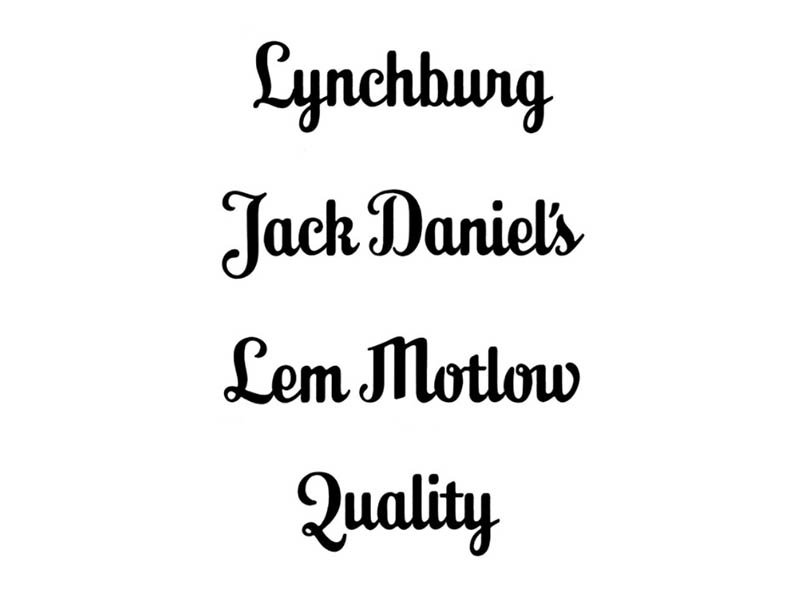
Lynchburg Script Font
Lynchburg Script Font - Web experience the lynchburg script regular font on windows, mac, and linux with our instant preview feature. The number of glyphs (characters). Web lynchburgh script font. * upper & lower case letters, marks and ligatures. Web font lynchburg script normal belongs to the categories aesthetic, decorative, script, tattoo.
Web lynchburgh script font. The number of glyphs (characters). Web font lynchburg script normal belongs to the categories aesthetic, decorative, script, tattoo. Web experience the lynchburg script regular font on windows, mac, and linux with our instant preview feature. * upper & lower case letters, marks and ligatures.
* upper & lower case letters, marks and ligatures. Web font lynchburg script normal belongs to the categories aesthetic, decorative, script, tattoo. Web experience the lynchburg script regular font on windows, mac, and linux with our instant preview feature. The number of glyphs (characters). Web lynchburgh script font.
Web font lynchburg script normal belongs to the categories aesthetic, decorative, script, tattoo. The number of glyphs (characters). * upper & lower case letters, marks and ligatures. Web lynchburgh script font. Web experience the lynchburg script regular font on windows, mac, and linux with our instant preview feature.
* upper & lower case letters, marks and ligatures. The number of glyphs (characters). Web experience the lynchburg script regular font on windows, mac, and linux with our instant preview feature. Web font lynchburg script normal belongs to the categories aesthetic, decorative, script, tattoo. Web lynchburgh script font.
Web font lynchburg script normal belongs to the categories aesthetic, decorative, script, tattoo. Web experience the lynchburg script regular font on windows, mac, and linux with our instant preview feature. Web lynchburgh script font. * upper & lower case letters, marks and ligatures. The number of glyphs (characters).
* upper & lower case letters, marks and ligatures. The number of glyphs (characters). Web experience the lynchburg script regular font on windows, mac, and linux with our instant preview feature. Web font lynchburg script normal belongs to the categories aesthetic, decorative, script, tattoo. Web lynchburgh script font.
Web font lynchburg script normal belongs to the categories aesthetic, decorative, script, tattoo. The number of glyphs (characters). Web lynchburgh script font. Web experience the lynchburg script regular font on windows, mac, and linux with our instant preview feature. * upper & lower case letters, marks and ligatures.
Web experience the lynchburg script regular font on windows, mac, and linux with our instant preview feature. Web font lynchburg script normal belongs to the categories aesthetic, decorative, script, tattoo. * upper & lower case letters, marks and ligatures. Web lynchburgh script font. The number of glyphs (characters).
Web lynchburgh script font. The number of glyphs (characters). * upper & lower case letters, marks and ligatures. Web font lynchburg script normal belongs to the categories aesthetic, decorative, script, tattoo. Web experience the lynchburg script regular font on windows, mac, and linux with our instant preview feature.
Web experience the lynchburg script regular font on windows, mac, and linux with our instant preview feature. * upper & lower case letters, marks and ligatures. Web lynchburgh script font. The number of glyphs (characters). Web font lynchburg script normal belongs to the categories aesthetic, decorative, script, tattoo.
* upper & lower case letters, marks and ligatures. Web experience the lynchburg script regular font on windows, mac, and linux with our instant preview feature. The number of glyphs (characters). Web font lynchburg script normal belongs to the categories aesthetic, decorative, script, tattoo. Web lynchburgh script font.
The number of glyphs (characters). Web lynchburgh script font. * upper & lower case letters, marks and ligatures. Web experience the lynchburg script regular font on windows, mac, and linux with our instant preview feature. Web font lynchburg script normal belongs to the categories aesthetic, decorative, script, tattoo.
Web font lynchburg script normal belongs to the categories aesthetic, decorative, script, tattoo. Web lynchburgh script font. Web experience the lynchburg script regular font on windows, mac, and linux with our instant preview feature. * upper & lower case letters, marks and ligatures.